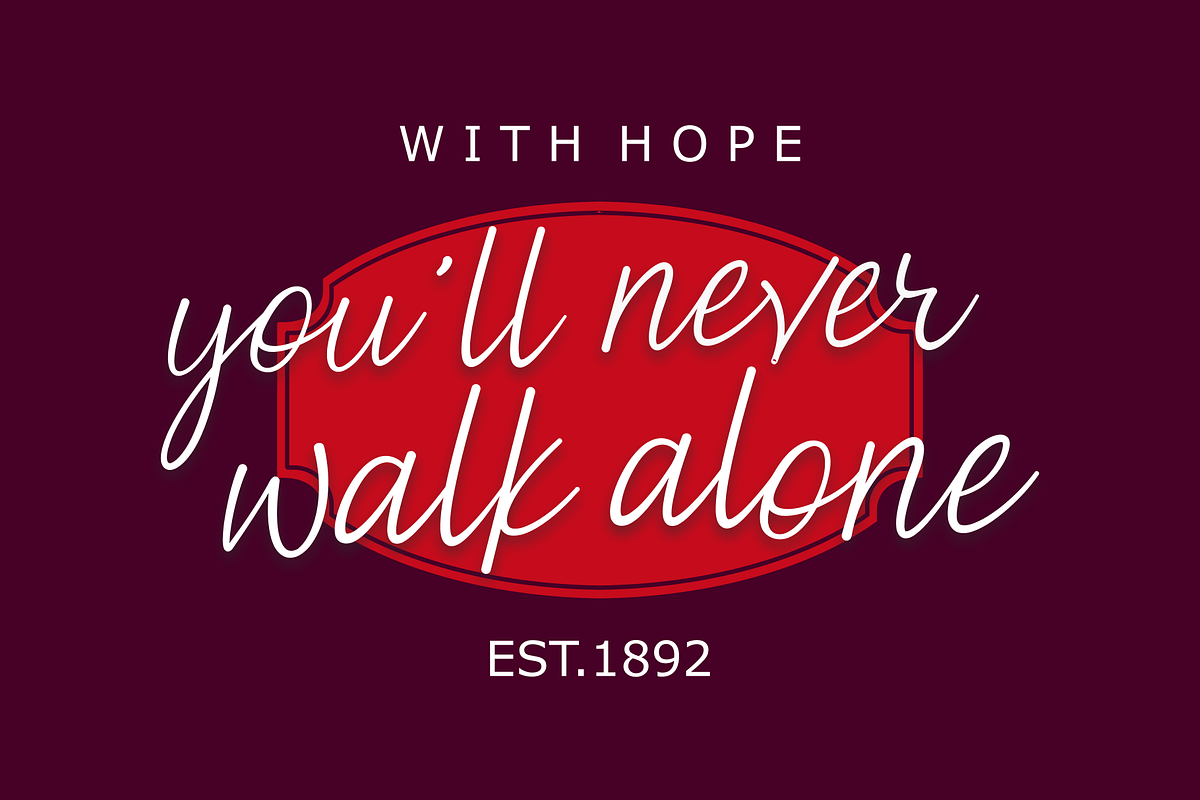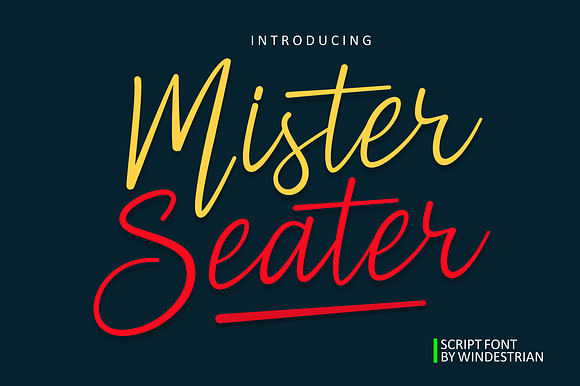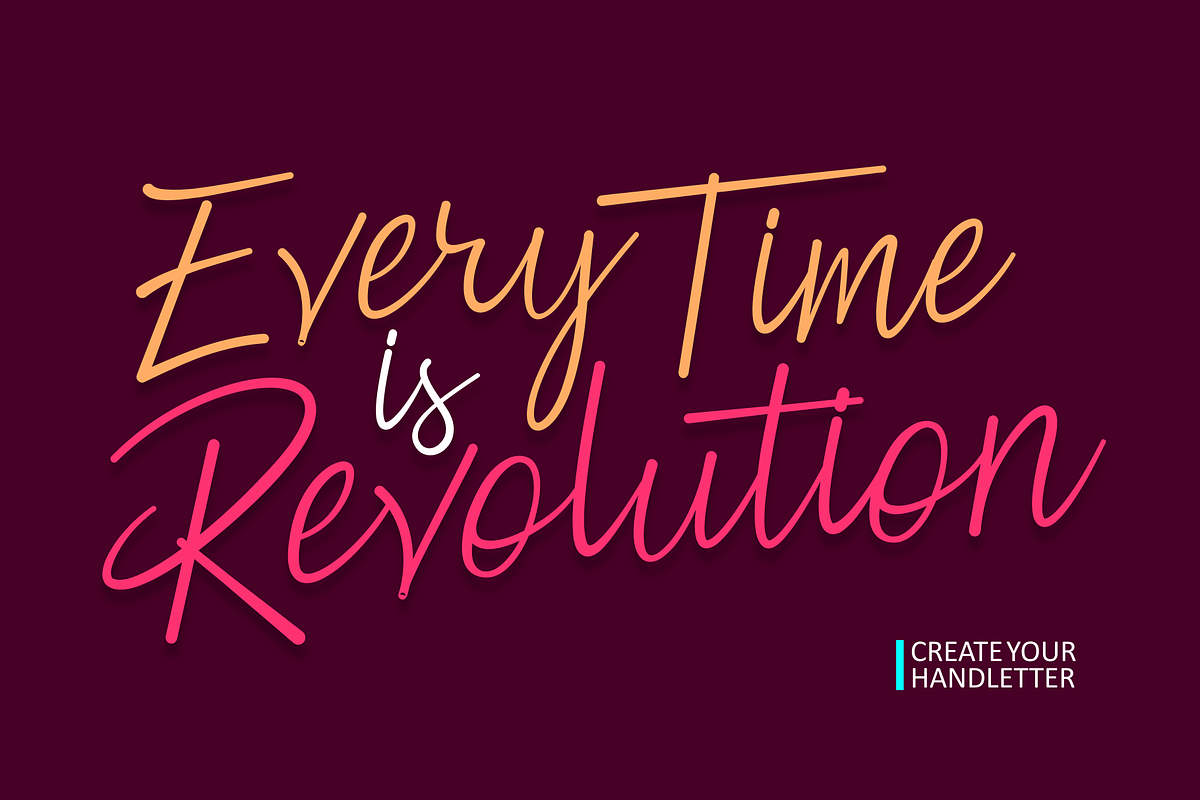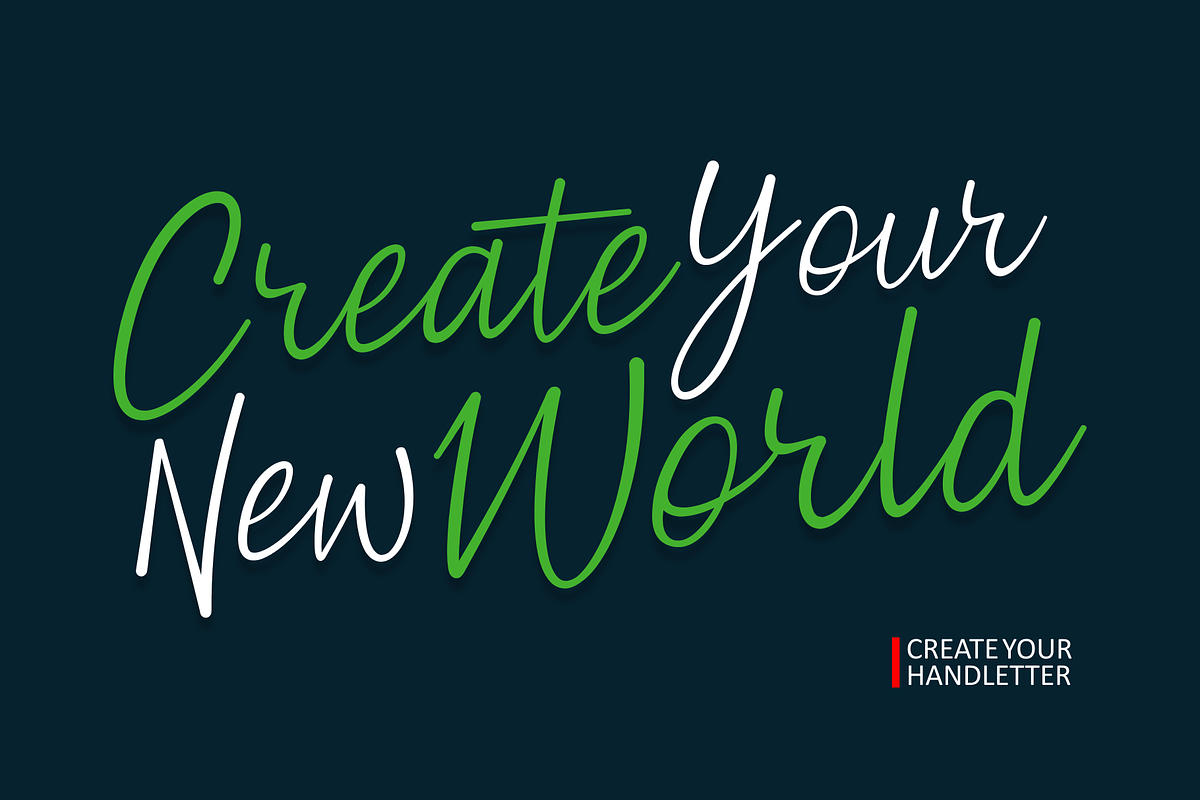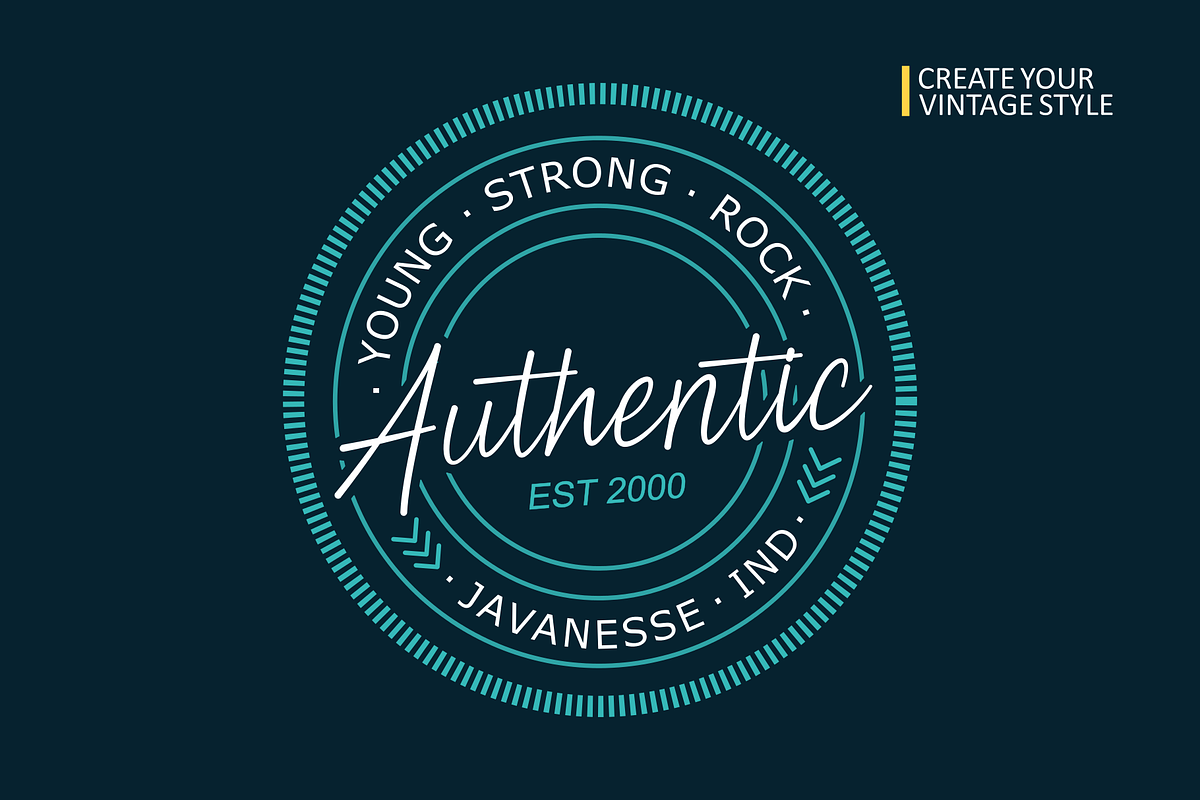
Mister Seater | Script Font
Mister Seater isunique, simple, bouncy and cool. It can be incorporated into many designs including quotes text, wedding invitations, posters and you can create custom cards to give to your friends and family.
- for the ligature, you can type tt
- for the swash, you can type (underscore)